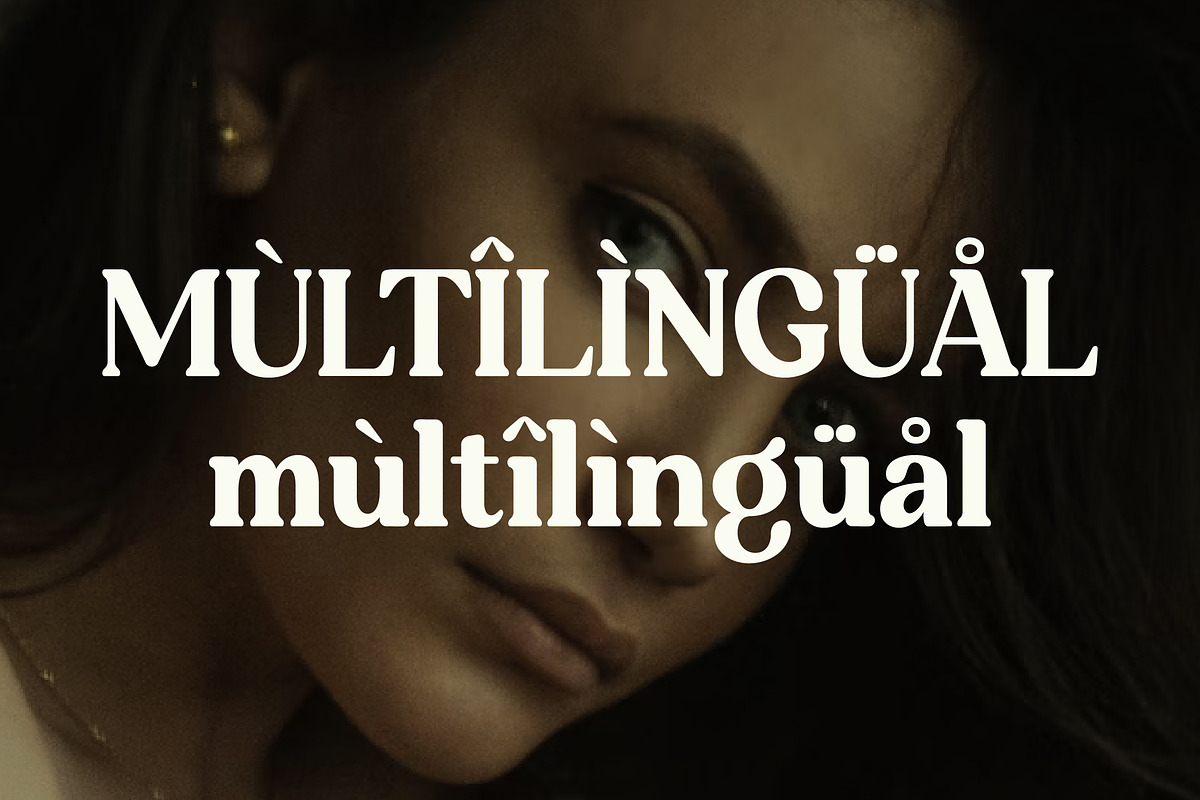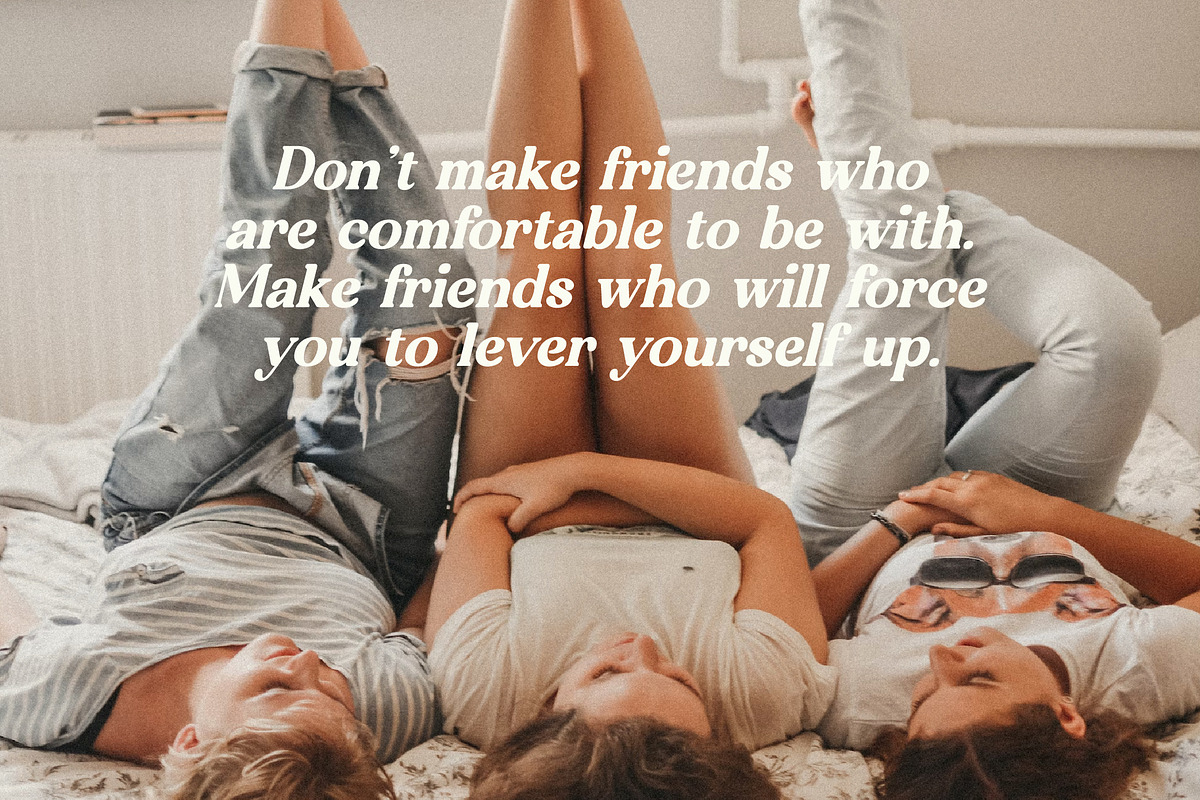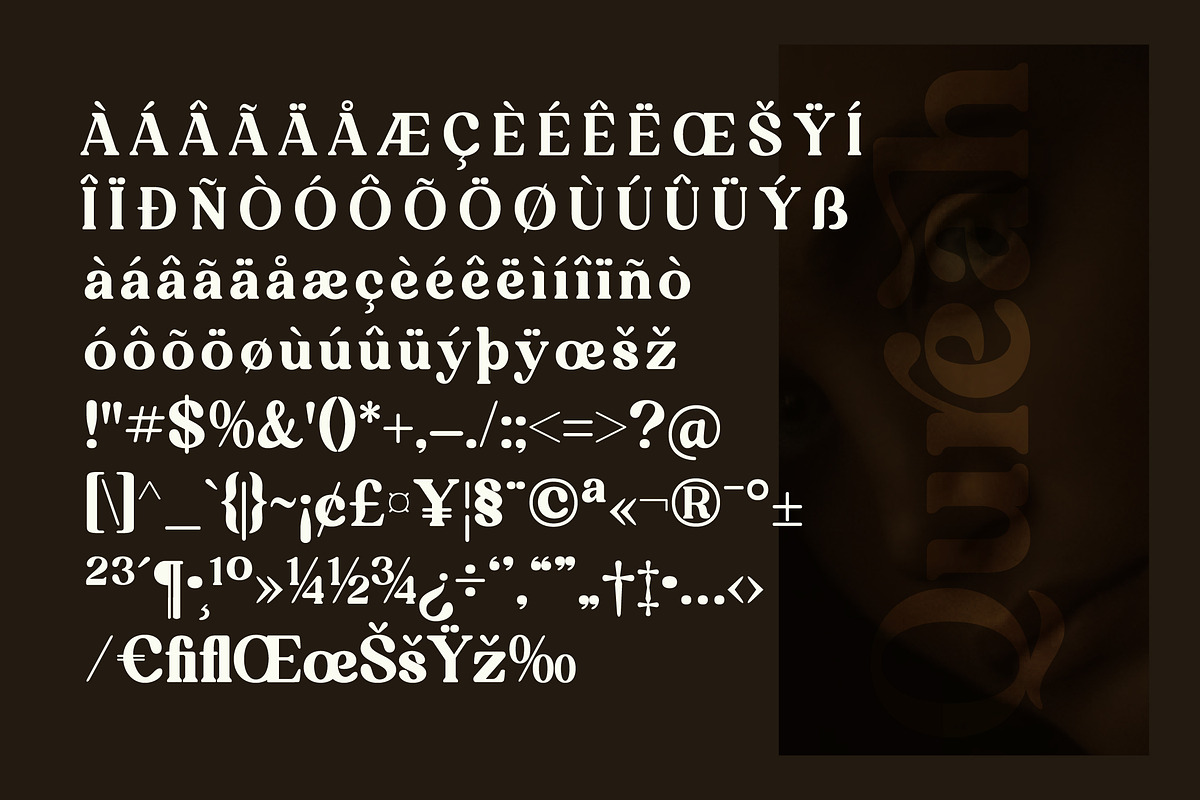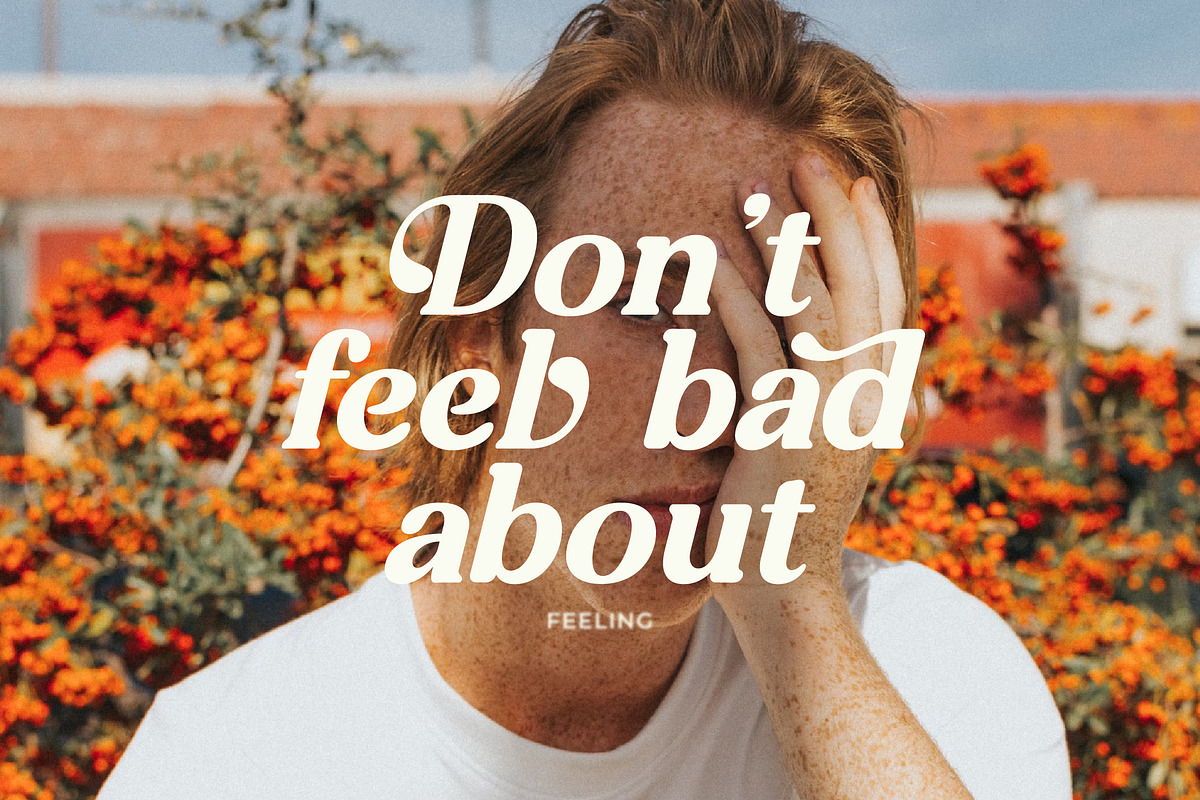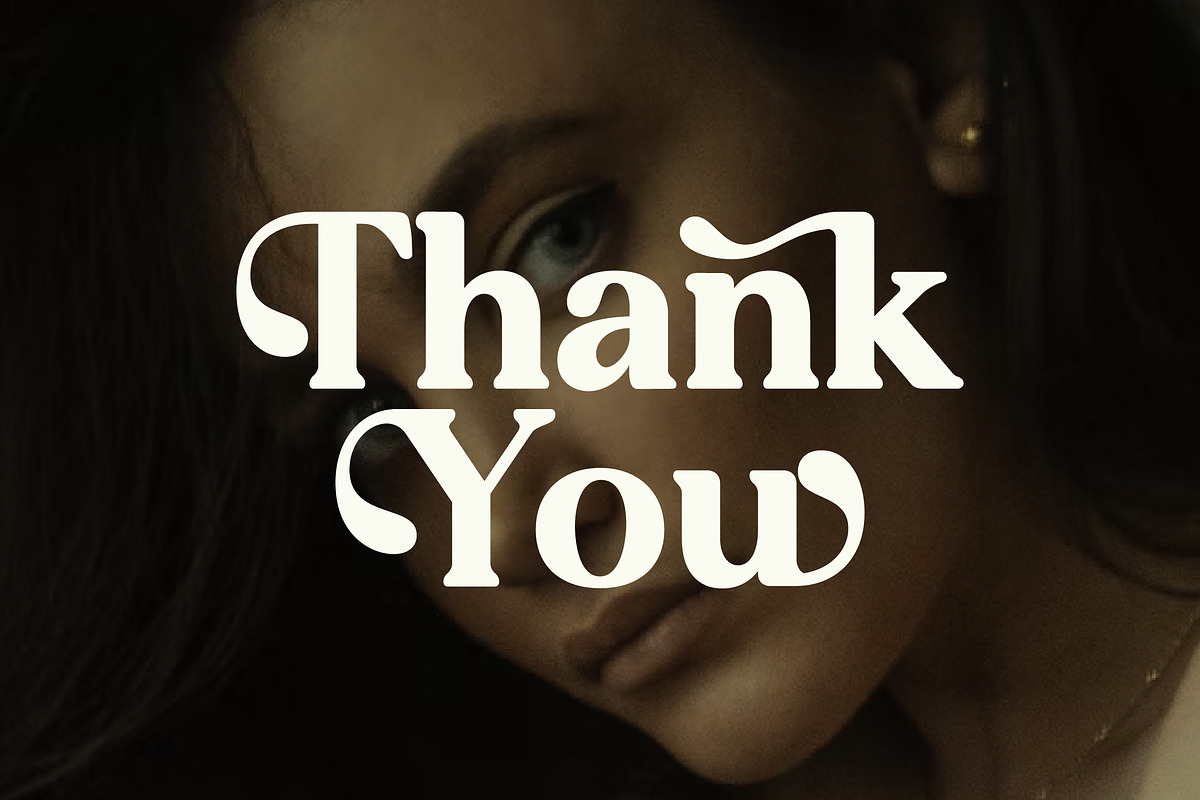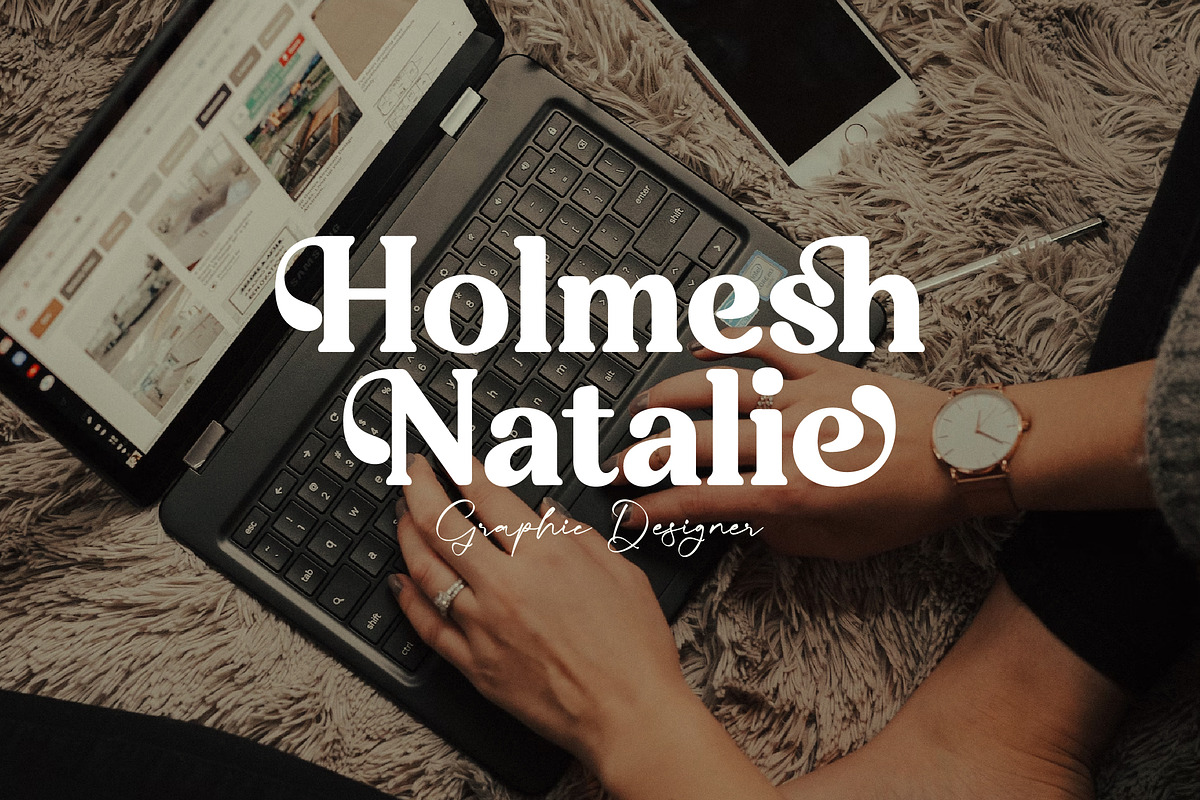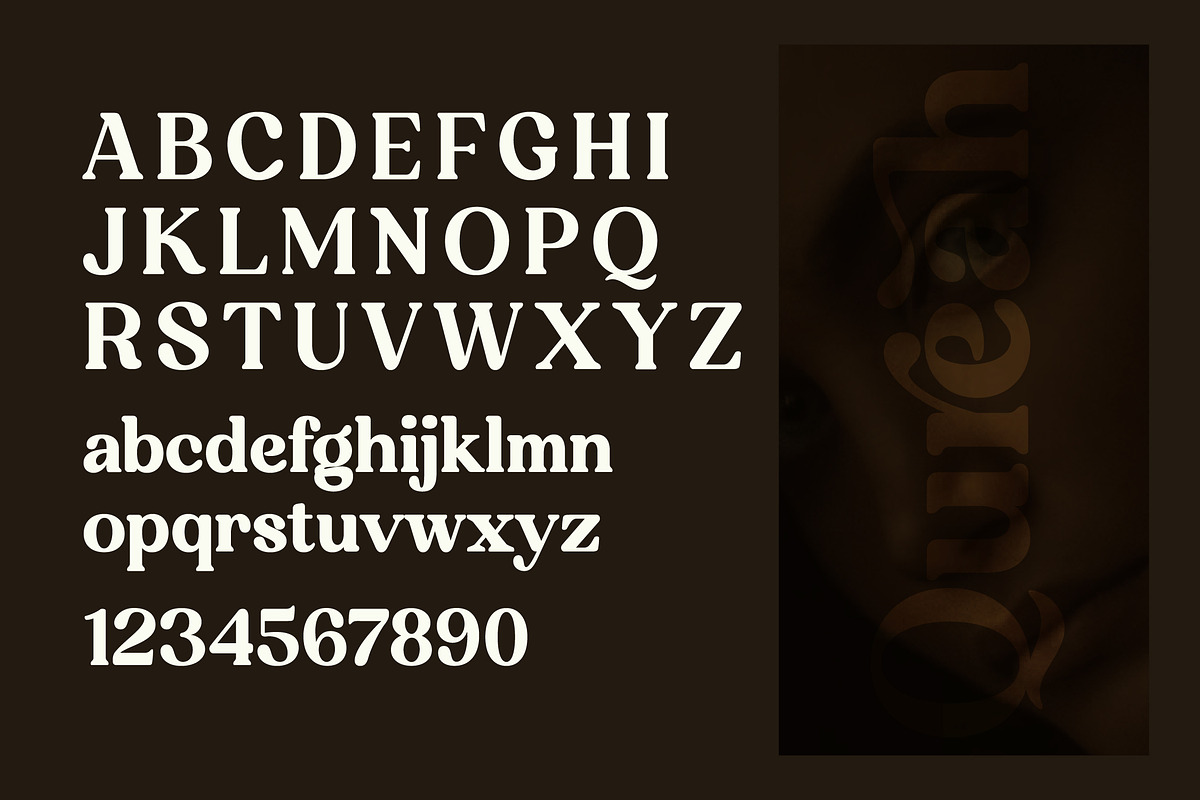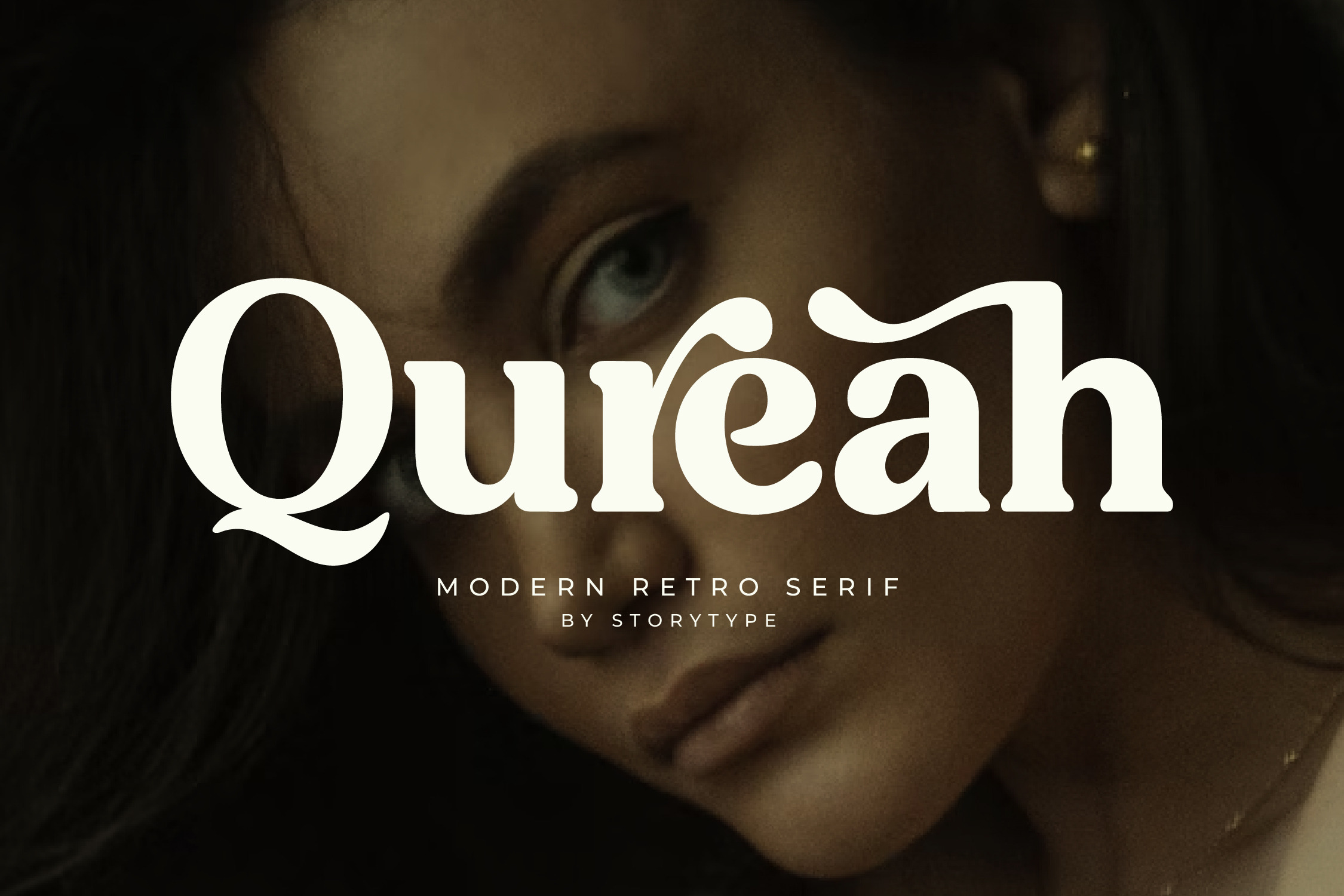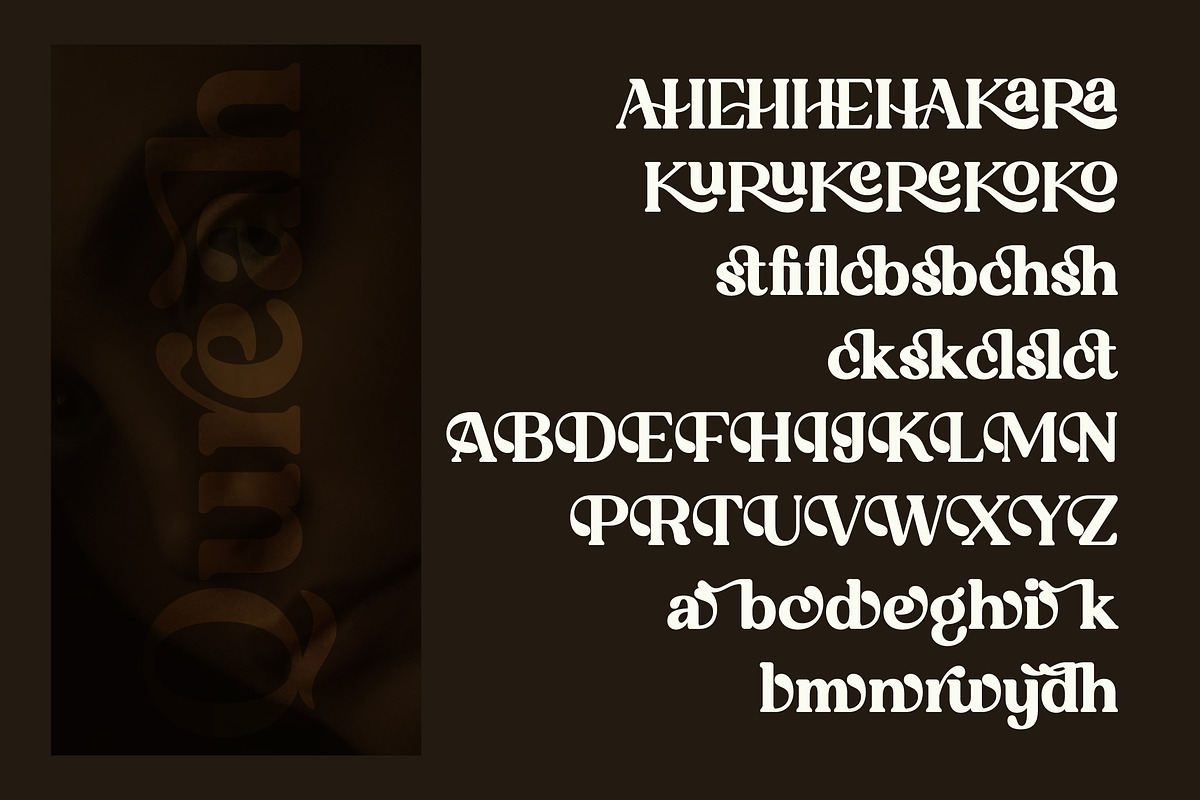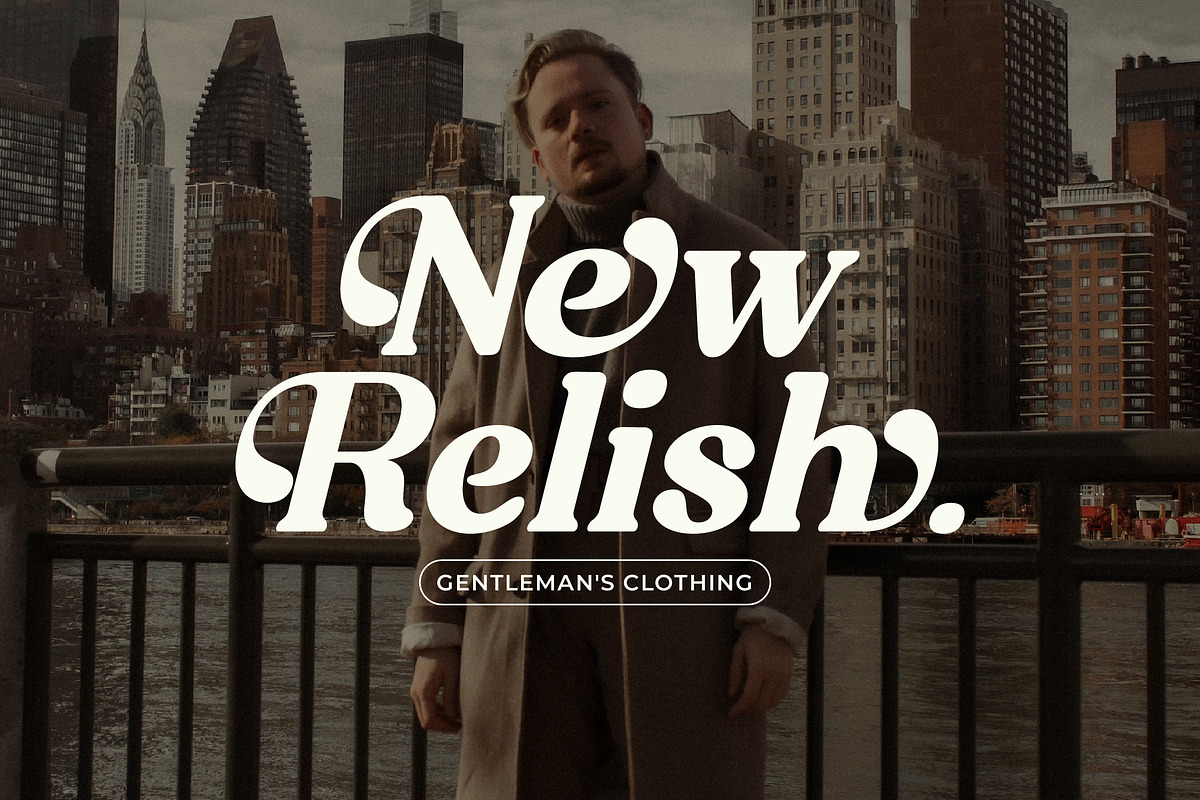
Qureah Modern Retro Serif Font
Proudly present Qureah Typeface , created by Storytype, A serif modern and classic typeface that has own unique style & modern look. This typeface is perfect for an elegant & luxury logo, book or movie title design, fashion brand, magazine, clothes, lettering, quotes, and so much more.